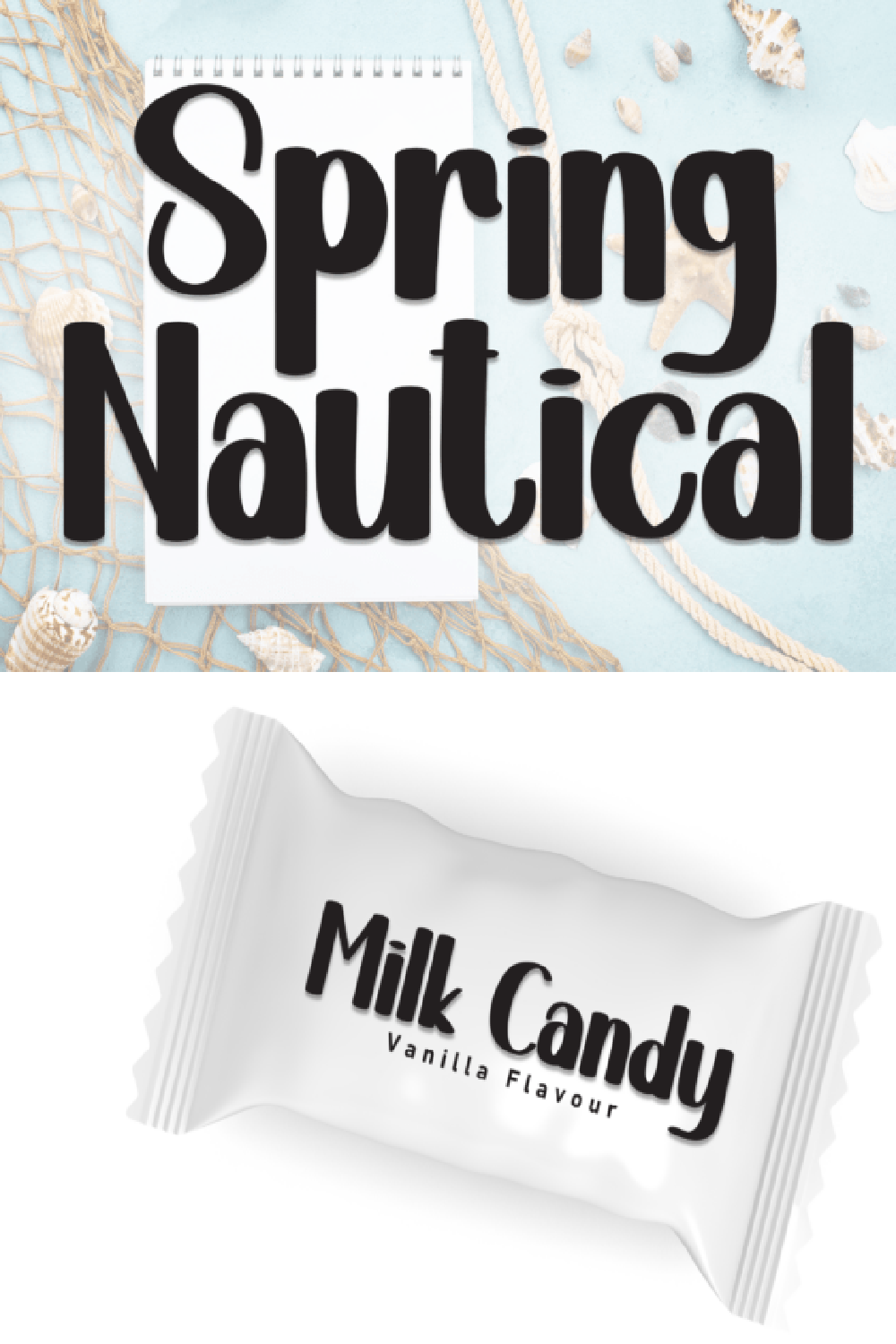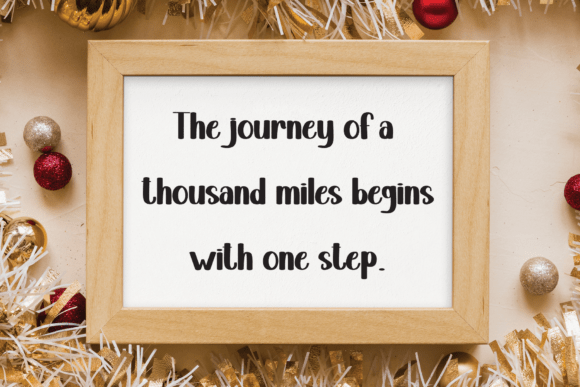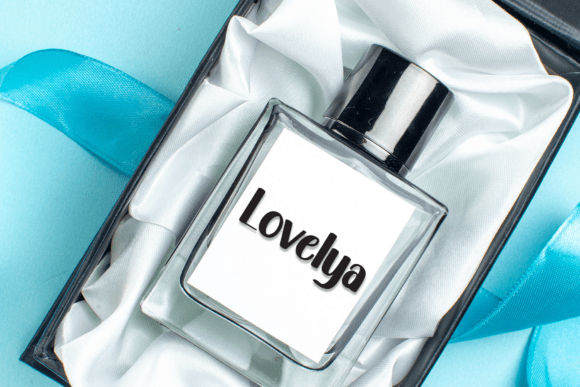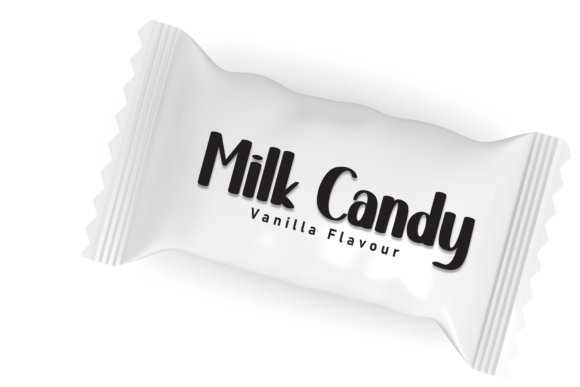
Spring Nautical Font
About the Spring Nautical Font
Step up your design game with Spring Nautical Font, a font that exudes confidence and style. Spring Nautical is a casual and neat display font that radiates a fresh, friendly vibe. With clean lines and a relaxed structure, it’s perfect for packaging, posters, and social media graphics. The approachable design adds charm and clarity to projects while maintaining a polished appearance.
Spring Nautical Font Usage Examples